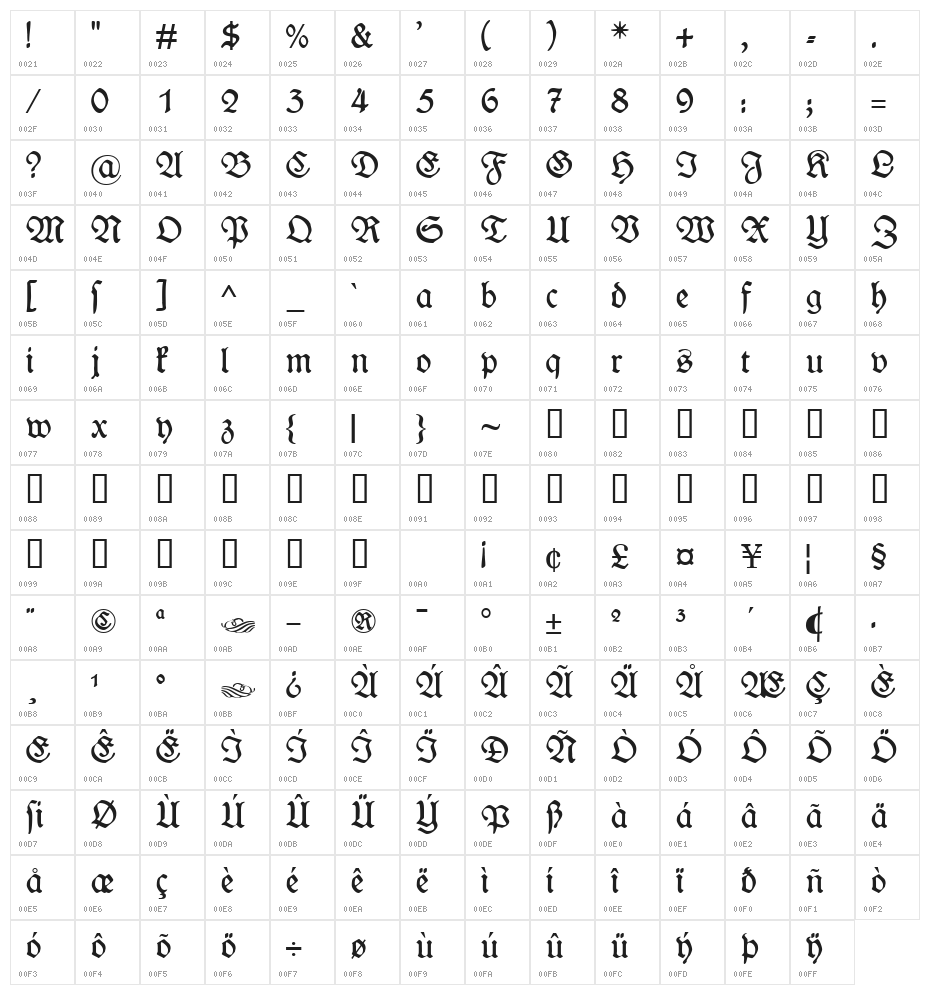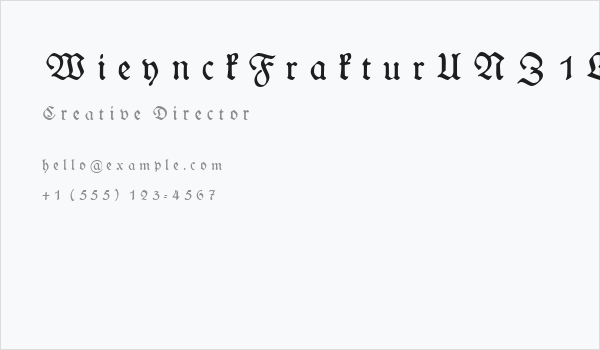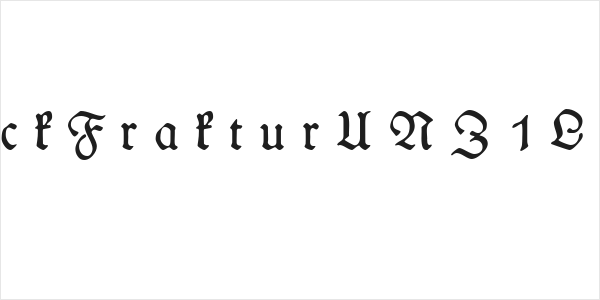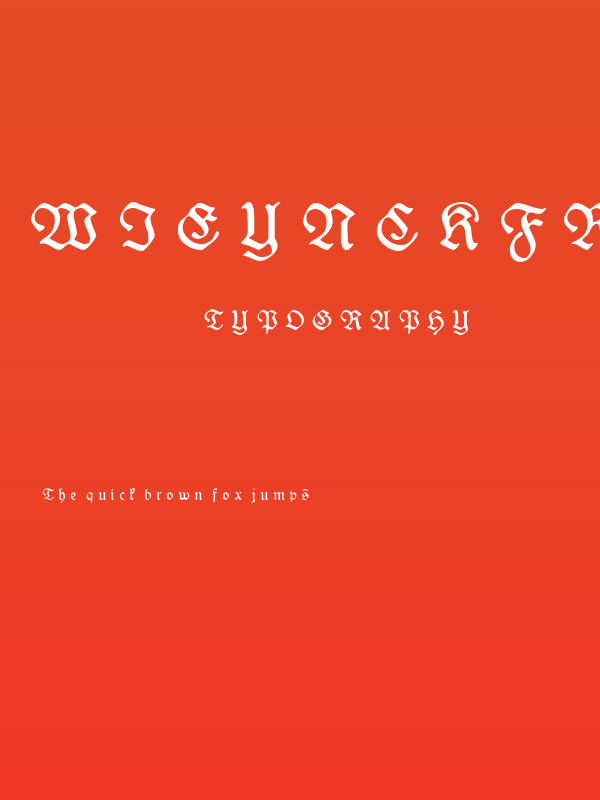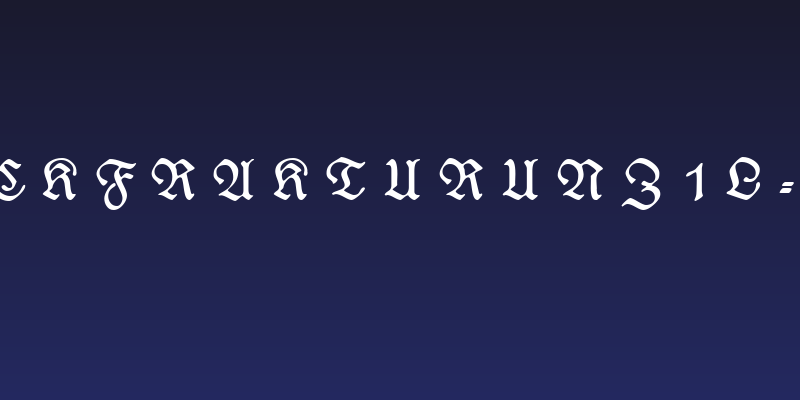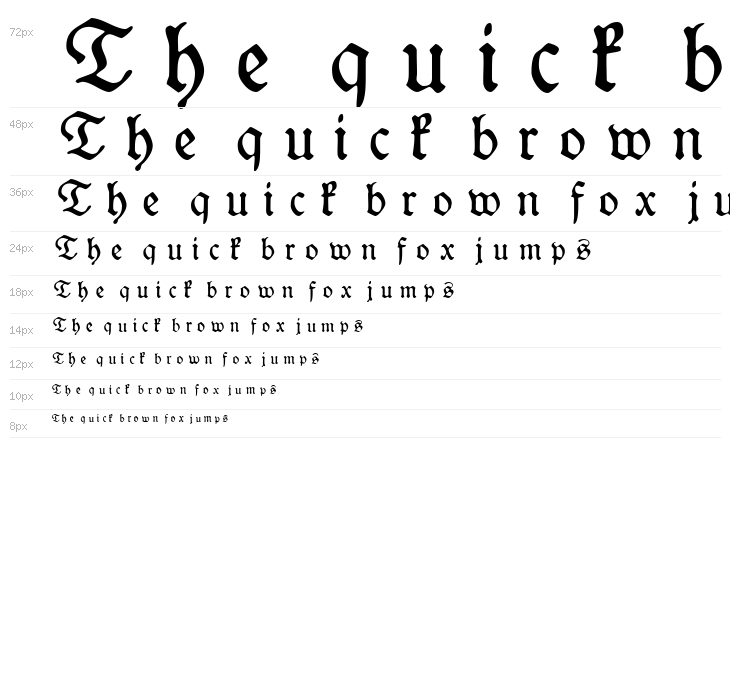
WieynckFrakturUNZ1L-Italic Font
WieynckFrakturUNZ1L-Italic Description
This font exhibits a classic blackletter style, characterized by its intricate and ornate letterforms. The uppercase letters are bold and dramatic, with sharp, angular lines and decorative flourishes that give them a medieval appearance. The lowercase letters maintain the same level of detail, with distinctive loops and curves that enhance their gothic aesthetic. The numerals are equally stylized, featuring unique shapes that complement the overall design. Special characters are crafted with the same attention to detail, ensuring consistency across the font. This typeface is ideal for projects that require a historical or traditional touch, as it evokes a sense of antiquity and elegance.